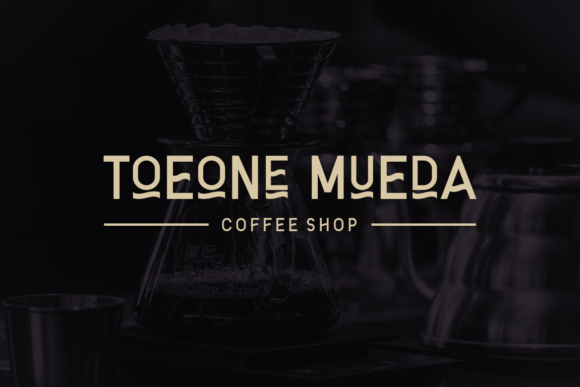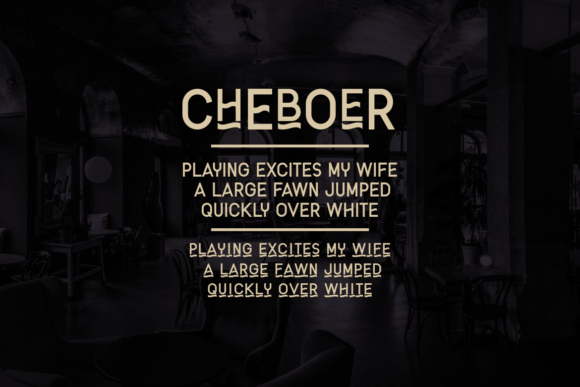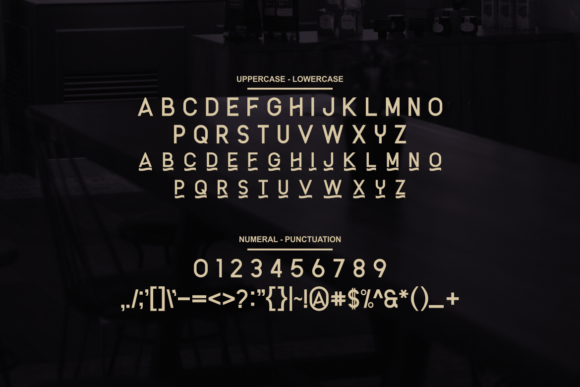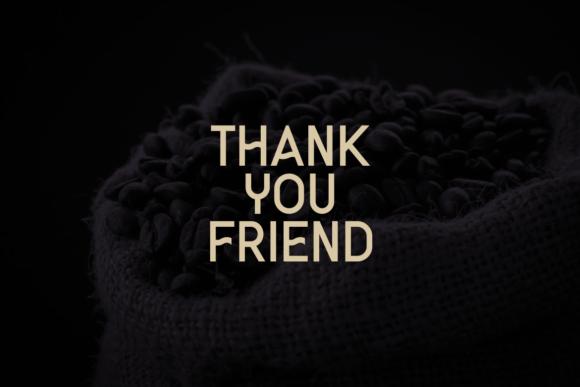
Introducing Cheboer Font: The Bold and Assertive Sans Serif Game-Changer
In the world of typography, fonts play a crucial role in conveying messages, expressing emotions, and creating visual identities. For designers, crafters, and creative enthusiasts, finding the right font can make all the difference in elevating a project from ordinary to extraordinary. This is where Cheboer Font comes in – a bold and assertive sans serif font that is poised to revolutionize your font library.
The Power of Sans Serif Fonts
Sans serif fonts have long been a staple in the design world, prized for their clean lines, modern aesthetic, and versatility. They are perfect for a wide range of applications, from digital media and advertising to packaging and editorial design. Cheboer Font takes the best of sans serif fonts and amplifies it with its bold and assertive personality, making it an incredible asset for any designer or crafter looking to make a statement.
What Makes Cheboer Font Stand Out
So, what sets Cheboer Font apart from other sans serif fonts? Here are a few key features that make it a game-changer:
- Bold and Assertive: Cheboer Font is designed to grab attention and make a statement. Its bold strokes and confident demeanor ensure that your message is heard loud and clear.
- Versatile: Whether you’re working on a digital project, a print publication, or a craft, Cheboer Font adapts seamlessly to any medium or theme.
- Highly Legible: Despite its boldness, Cheboer Font remains highly legible, ensuring that your message is communicated clearly and effectively.
- Unique Character: Cheboer Font has a distinct personality that sets it apart from more generic sans serif fonts. Its unique character adds a touch of sophistication and style to any project.
Applications of Cheboer Font
Cheboer Font is incredibly versatile and can be used in a wide range of applications, including:
- Digital Media: Use Cheboer Font to create eye-catching social media graphics, blog headers, and website titles that demand attention.
- Advertising: Make your ads stand out with Cheboer Font’s bold and assertive personality, perfect for headlines, slogans, and taglines.
- Packaging: Add a touch of modern sophistication to your product packaging with Cheboer Font, ideal for labels, logos, and branding.
- Editorial Design: Use Cheboer Font to create striking headlines, titles, and section dividers in magazines, newspapers, and books.
- Crafts: Cheboer Font is also perfect for crafters, adding a bold and modern touch to handmade projects, such as signs, posters, and DIY decor.
Tips for Using Cheboer Font Effectively
To get the most out of Cheboer Font, here are a few tips to keep in mind:
- Use it Sparingly: While Cheboer Font is bold and assertive, it can also be overwhelming if overused. Use it sparingly to create visual interest and emphasis.
- Pair it with Contrasting Fonts: Pair Cheboer Font with contrasting fonts to create visual hierarchy and add depth to your design.
- Experiment with Colors: Don’t be afraid to experiment with different colors and textures to add an extra layer of interest to your design.
In conclusion, Cheboer Font is a bold and assertive sans serif font that is poised to revolutionize your font library. Its versatility, legibility, and unique character make it an incredible asset for designers, crafters, and creative enthusiasts. Whether you’re working on a digital project, a print publication, or a craft, Cheboer Font is sure to elevate your creation and make it stand out from the crowd.